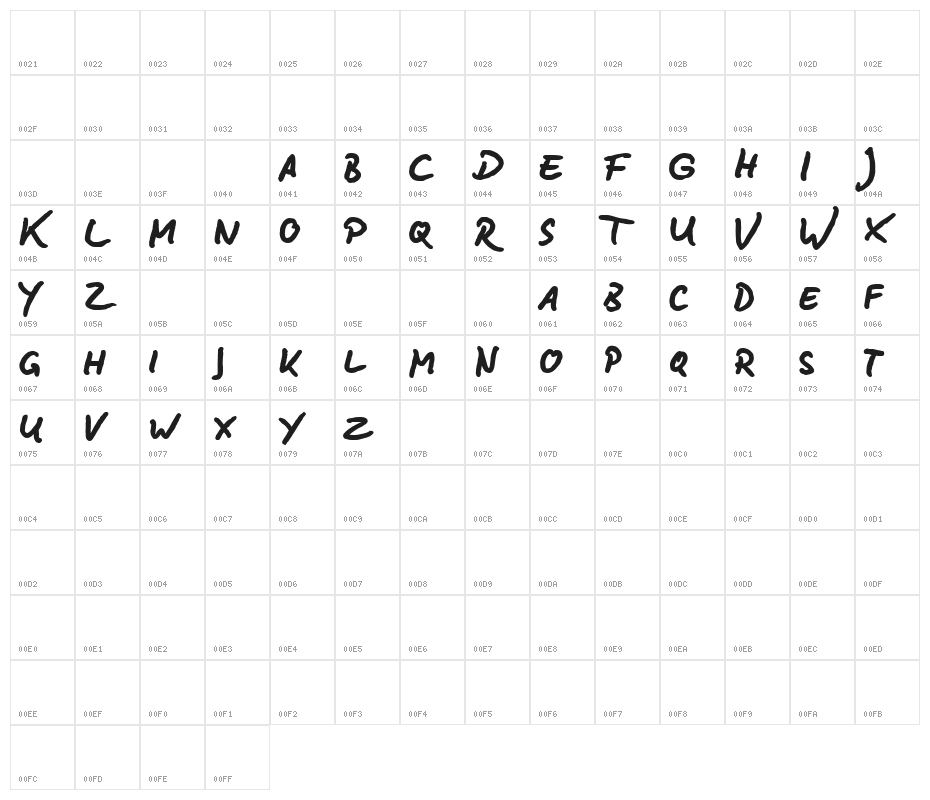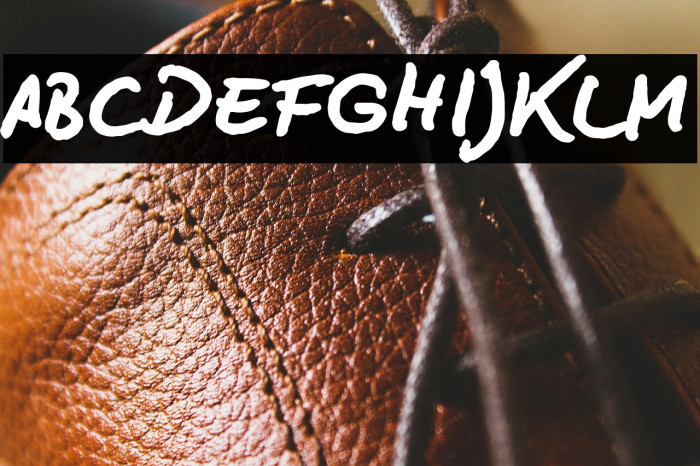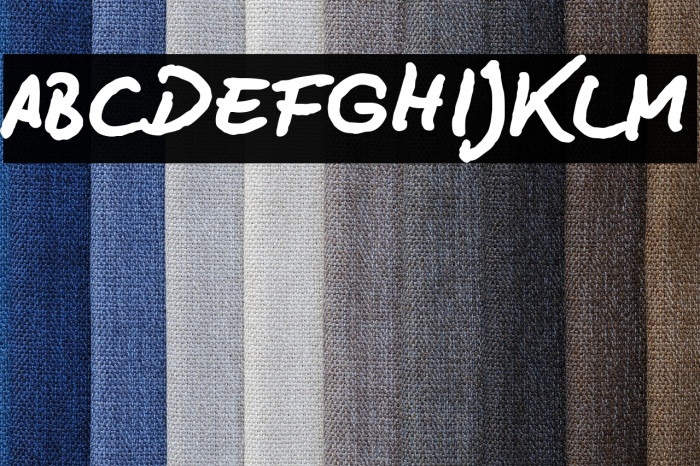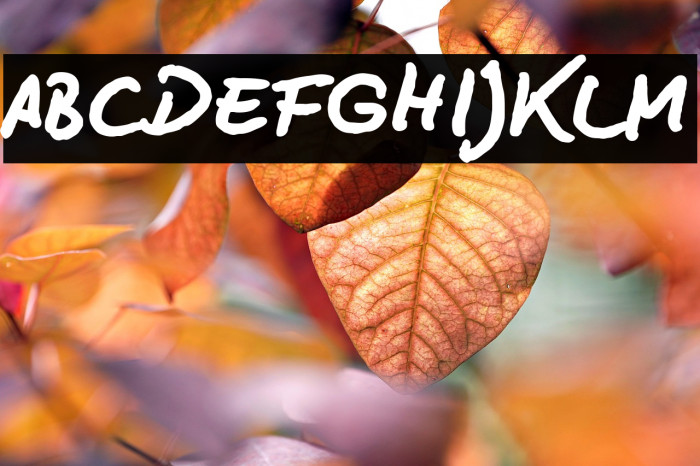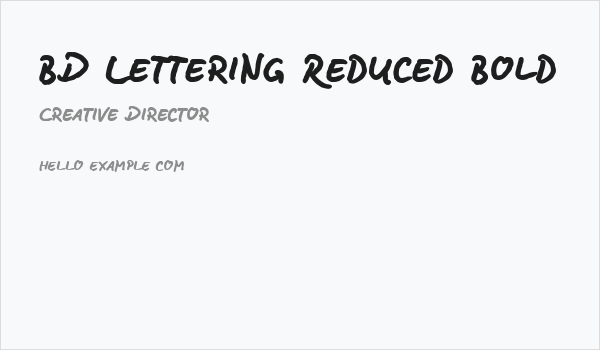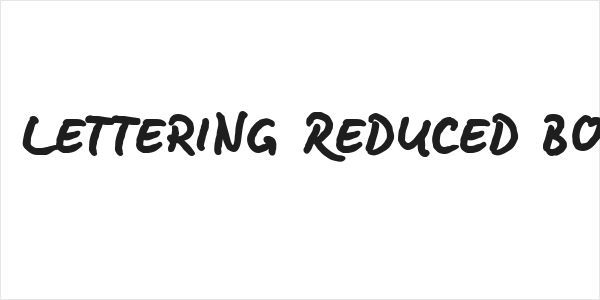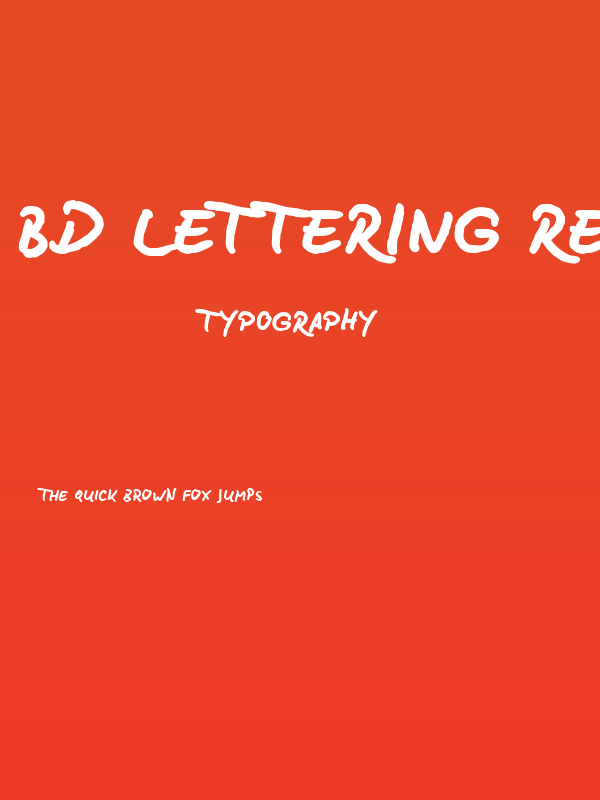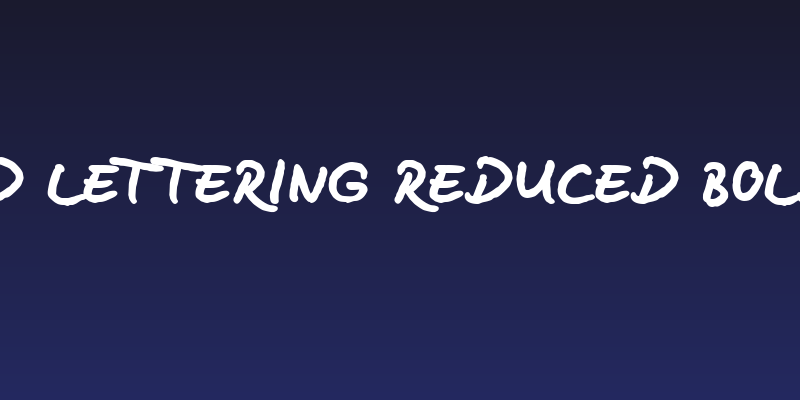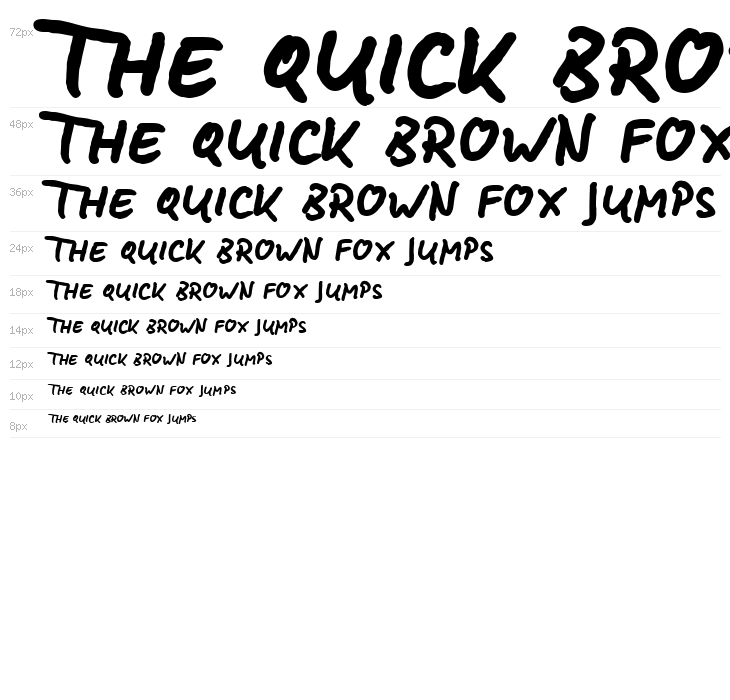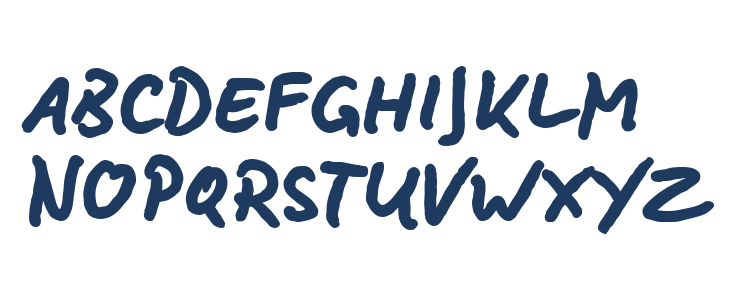
BD Lettering Reduced Bold Font
BD Lettering Reduced Bold Description
This font features a bold, handwritten style with a dynamic and energetic appearance. The letters are slightly slanted, giving a sense of motion and fluidity. The strokes are thick and consistent, providing a strong visual impact. The uppercase and lowercase letters maintain a cohesive look, with rounded edges and a casual, informal vibe. This font is ideal for projects that require a personal touch or a creative flair, such as invitations, posters, or branding materials. Its boldness ensures readability while its handwritten nature adds a unique character.
| Proposed Projects | Ideal for invitations, posters, branding materials, and creative projects. |